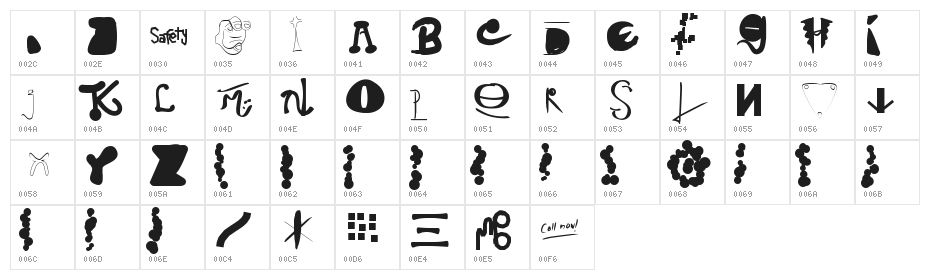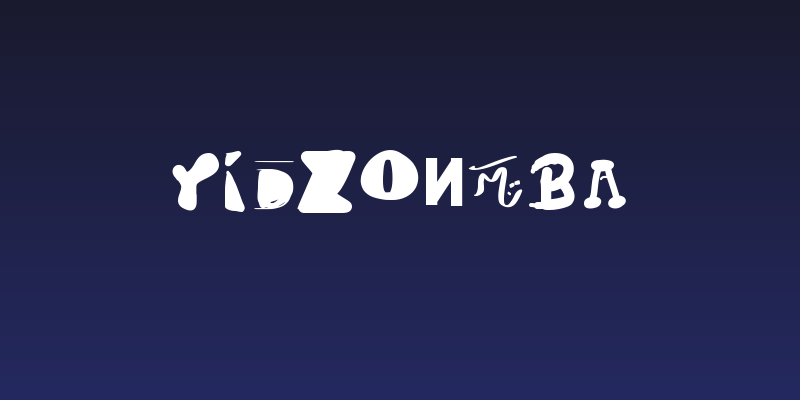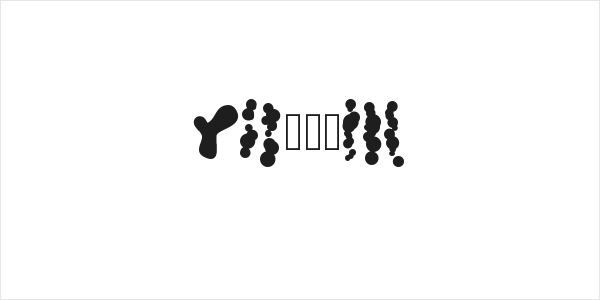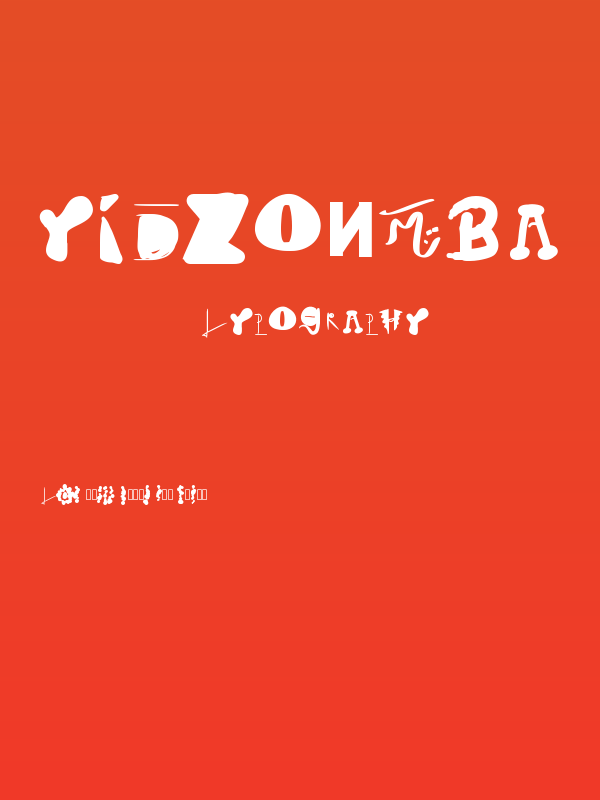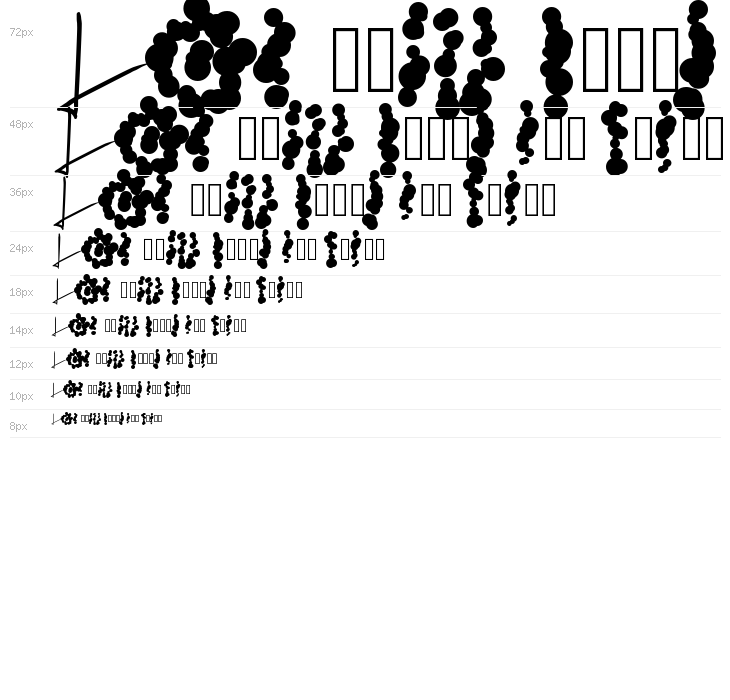
Yidzoumba Font
Yidzoumba Description
This font is a highly creative and abstract design, featuring a mix of geometric and organic shapes. Each character is uniquely crafted, with some letters incorporating elements like arrows, hearts, and other symbols. The style is eclectic, with varying stroke thicknesses and playful forms that defy traditional font categories. The lowercase letters are particularly bold and bubbly, creating a striking visual impact. This font is designed to capture attention and convey a sense of whimsy and artistic flair.
| Overall Style | Artistic and Whimsical |
| Use Case | Logos, Posters, Artistic Projects |
| Proposed Projects | Ideal for creative projects such as art posters, album covers, or branding for unconventional businesses. It could also be used in digital media where a unique and eye-catching typeface is desired. |